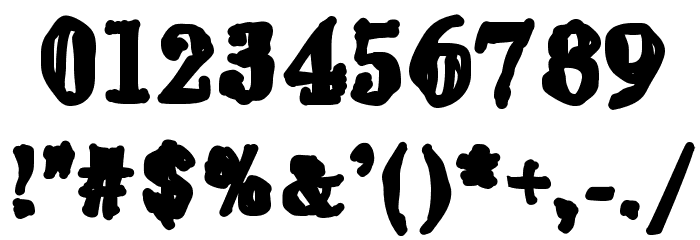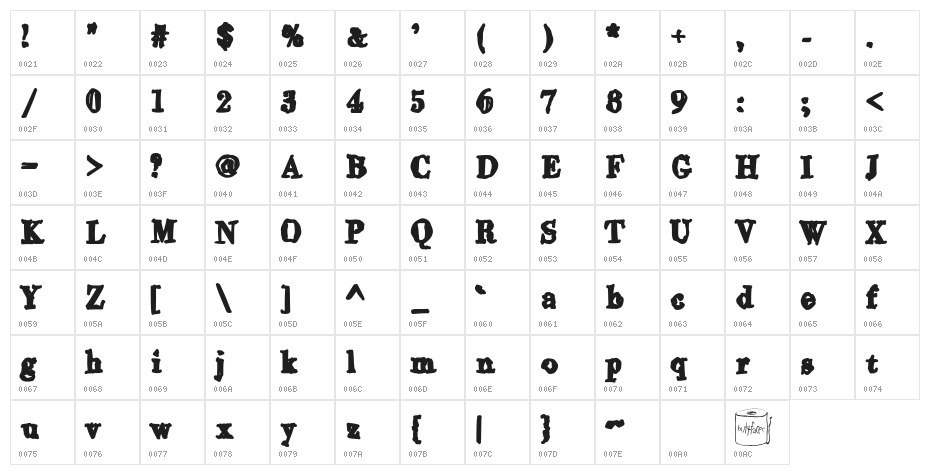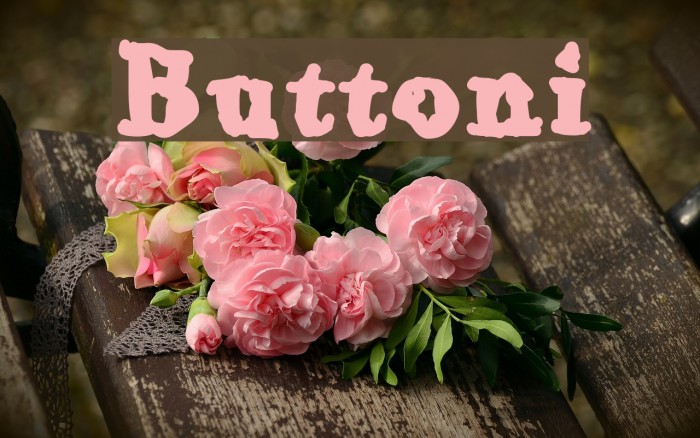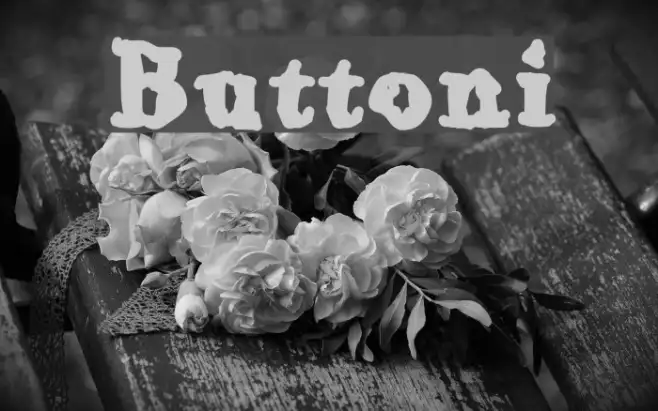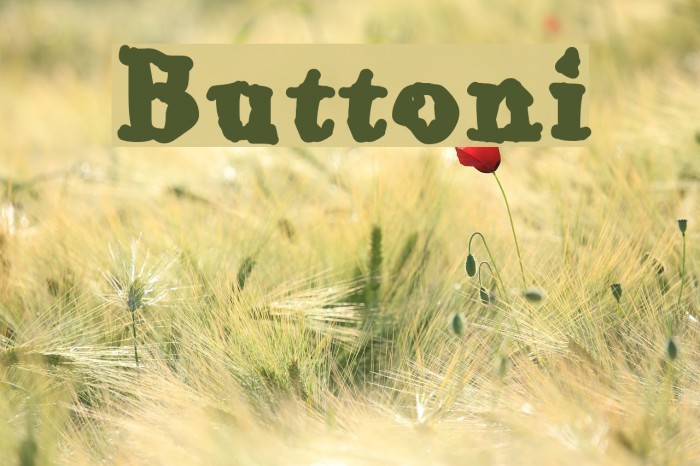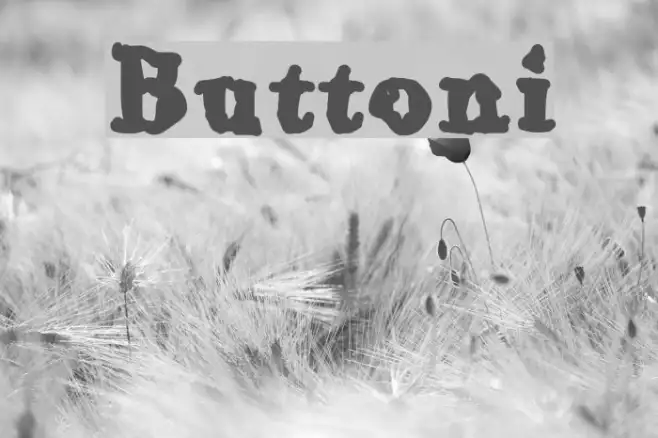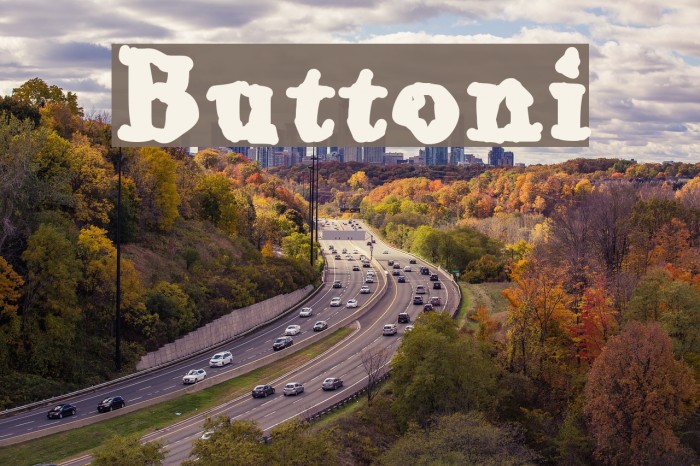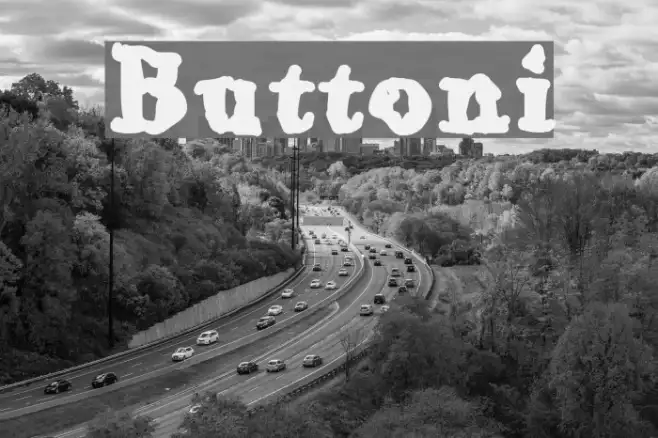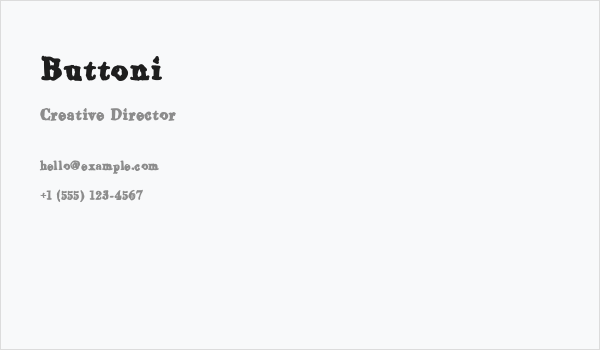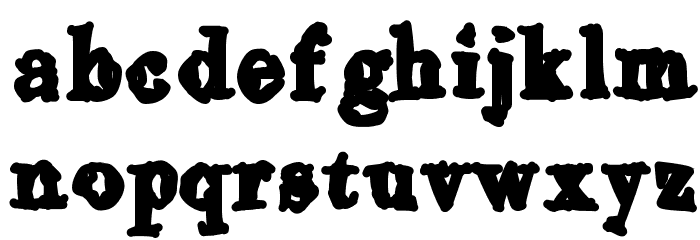
Buttoni Font
Buttoni Description
This font exhibits a bold and rugged style, characterized by its thick, uneven strokes and a slightly distressed appearance. The uppercase letters are prominent and commanding, while the lowercase letters maintain a consistent, yet playful form. The numbers and special characters follow the same bold and textured design, making them stand out. The overall look is reminiscent of vintage or western themes, with a touch of modern flair. This font is perfect for creating eye-catching headlines or logos that require a strong visual impact. Its unique style makes it suitable for projects that aim to convey a sense of adventure or nostalgia.
| Proposed Projects | Ideal for posters, logos, branding, and any design needing a bold, vintage touch. |